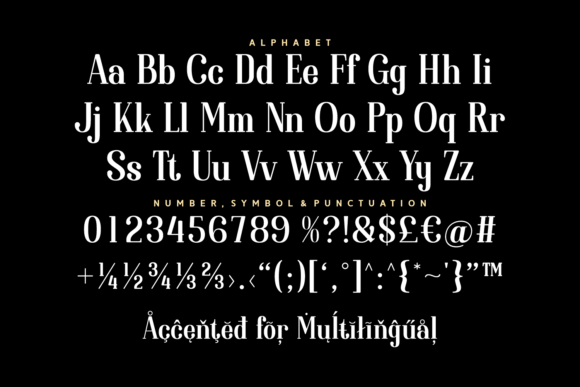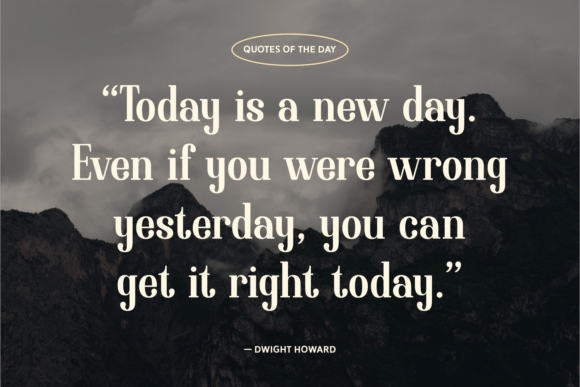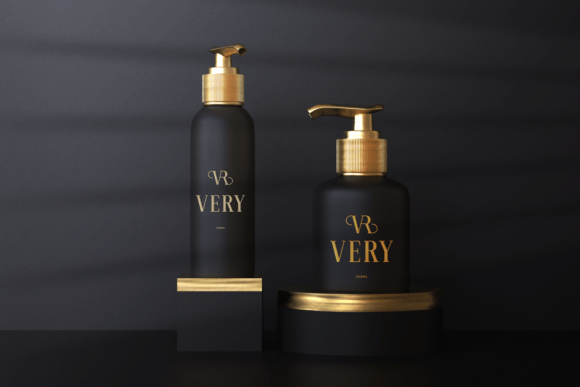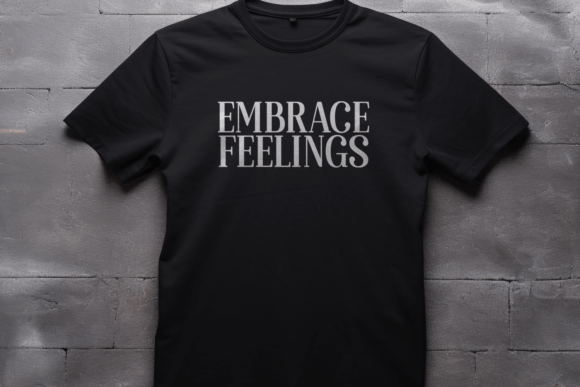
Introduction to Lines Dream Font
An introductory image for “Lines Dream,” a new elegant serif font from the year 2025.
The dreamy and grand scenery perfectly complements the font’s modern and refined character .
Key Features of Lines Dream Font